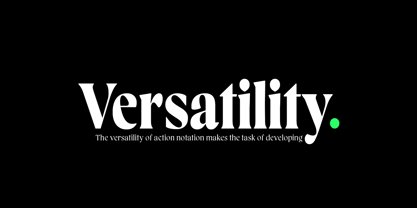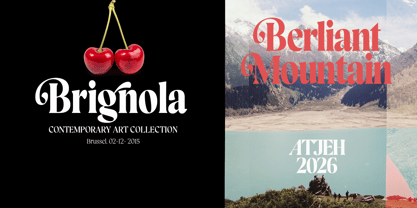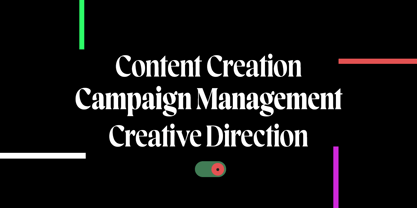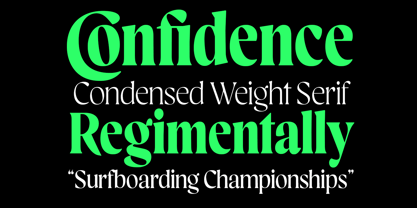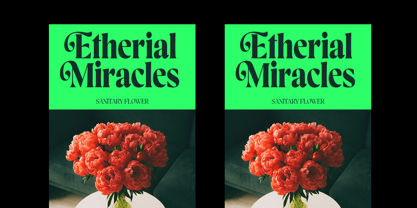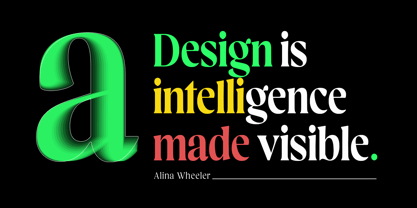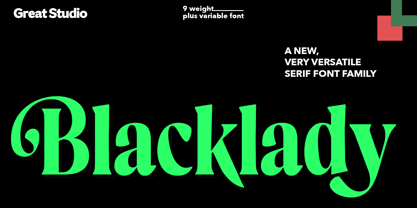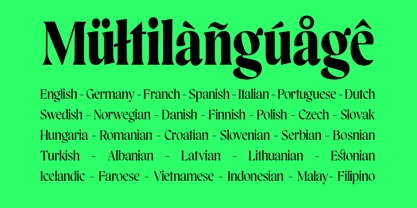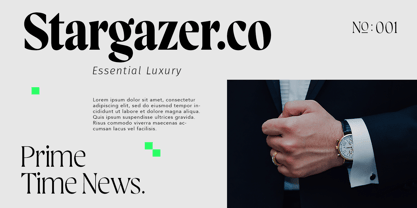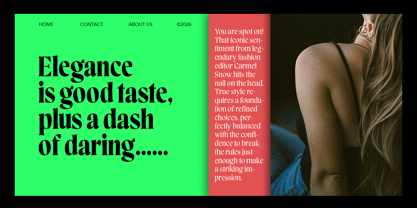
Blacklady
The Blacklady Font Family was designed by Mulkan Nazir and published by Great Studio. Blacklady contains 6 styles. More about this family
Blacklady is a refined modern serif typeface that seamlessly blends timeless elegance with contemporary sophistication. Designed with high-contrast strokes, graceful curves, and meticulously crafted serif details, Blacklady delivers a luxurious aesthetic that instantly elevates any design. Its balanced proportions and distinctive letterforms create a strong visual identity while maintaining exceptional readability across both display and editorial applications.
Inspired by the world of high-end fashion, premium branding, and modern editorial design, Blacklady offers a perfect harmony between classic serif traditions and contemporary minimalism. Whether used for bold headlines or delicate body text, it brings confidence, elegance, and exclusivity to every project.
Featuring 9 font weights and a fully functional Variable Font, Blacklady provides maximum creative flexibility, allowing designers to achieve smooth weight transitions and build sophisticated typographic hierarchies with ease.